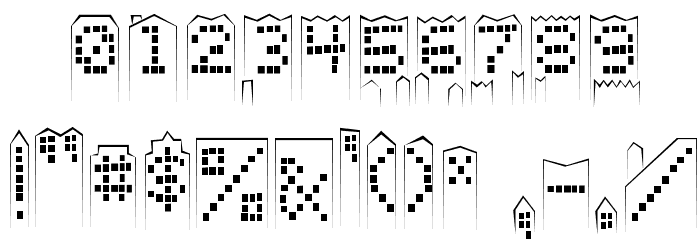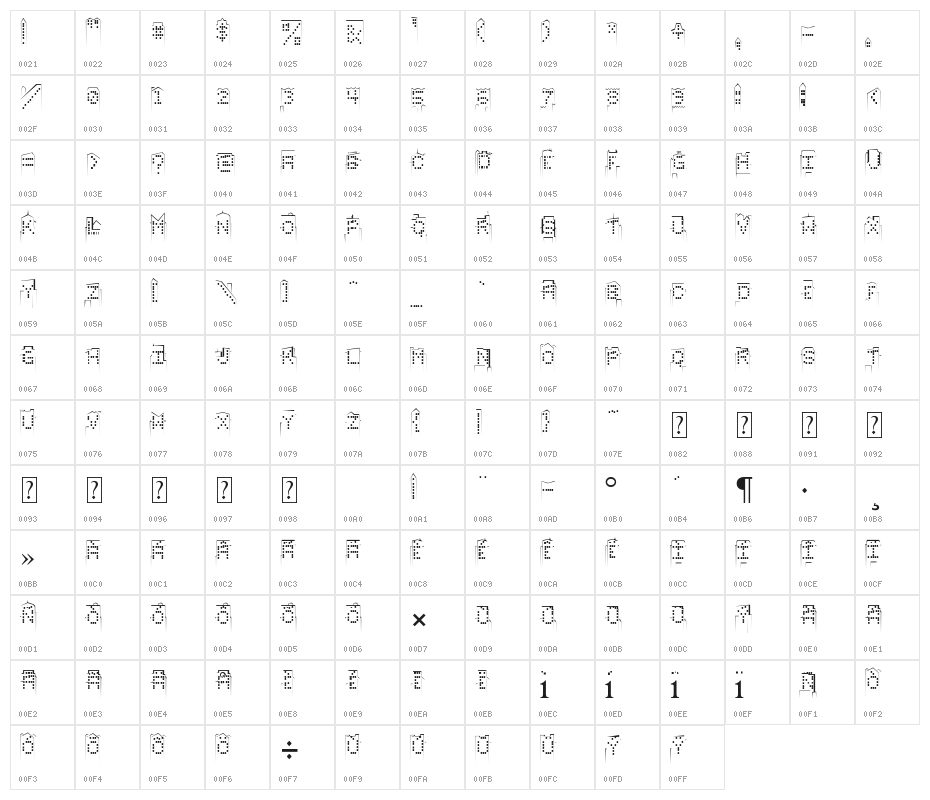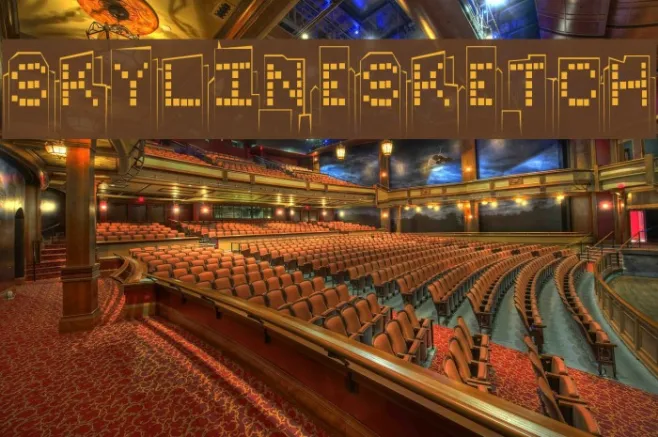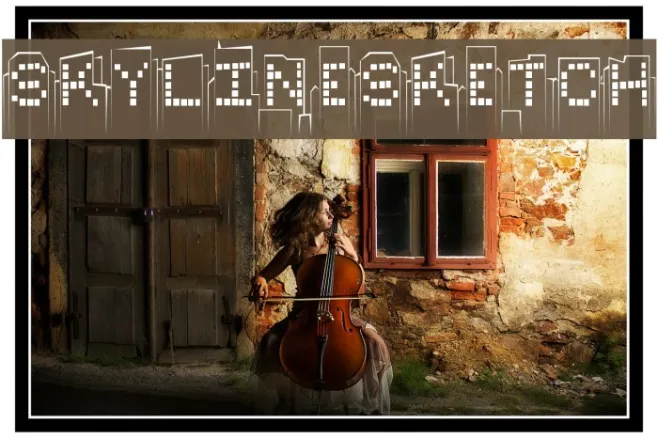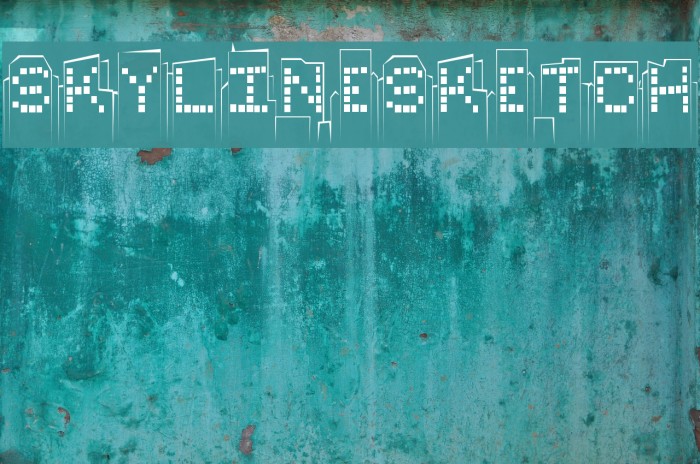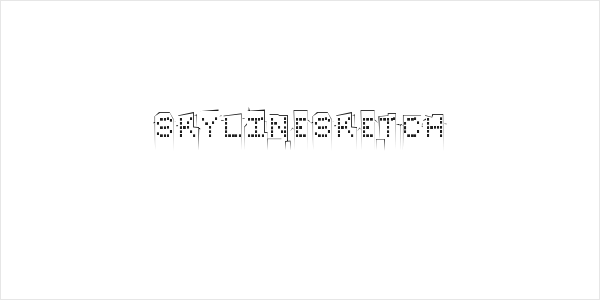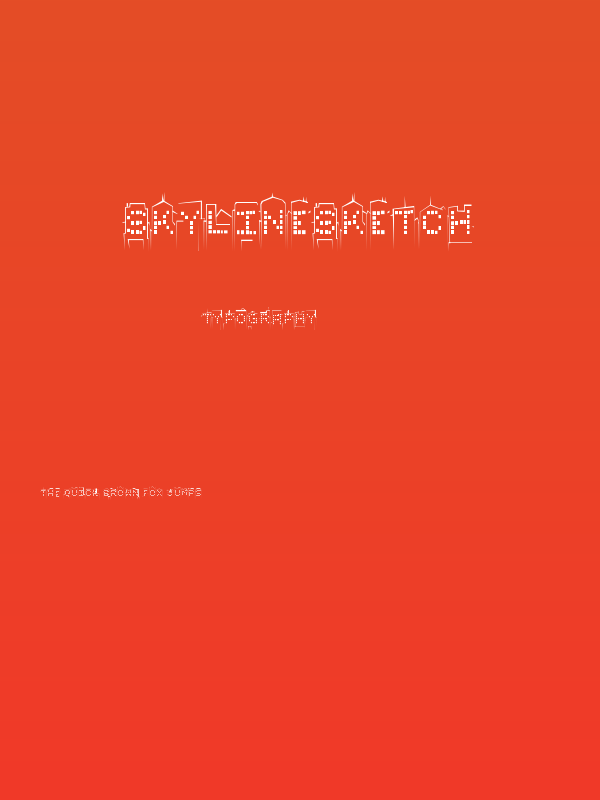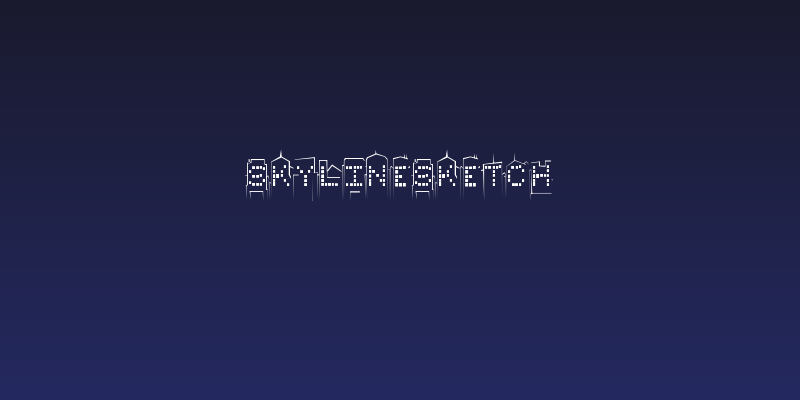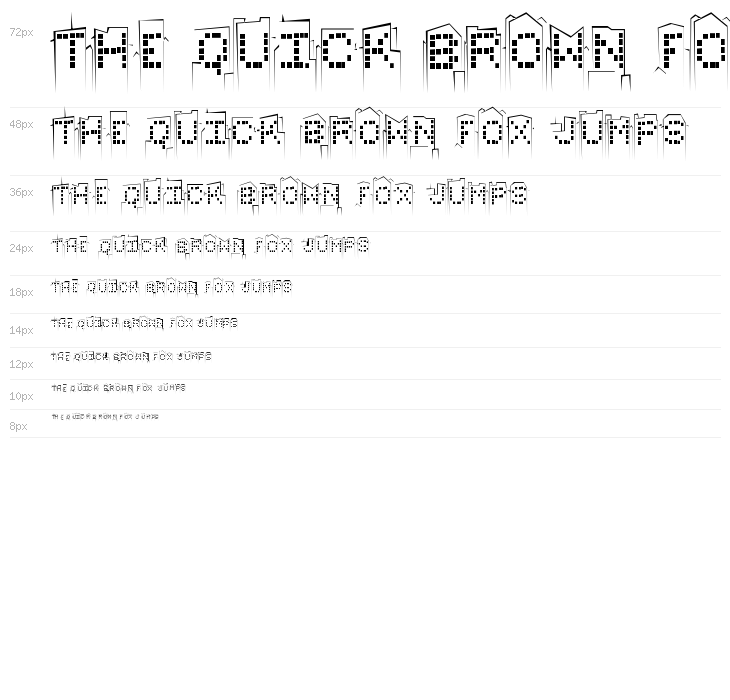
skylinesketch Font
skylinesketch Description
This font features a unique design that mimics the skyline of a city. Each character is constructed with a series of vertical lines and square windows, resembling skyscrapers. The letters and numbers are formed by the arrangement of these windows, creating a pixelated effect. The overall appearance is modern and architectural, with a playful yet structured aesthetic. The font is highly decorative, making it suitable for creative projects that require a distinctive urban theme. The characters are evenly spaced, and the vertical lines give a sense of height and grandeur.
| Proposed Projects | Ideal for urban-themed posters, architectural presentations, creative branding, and event invitations. |